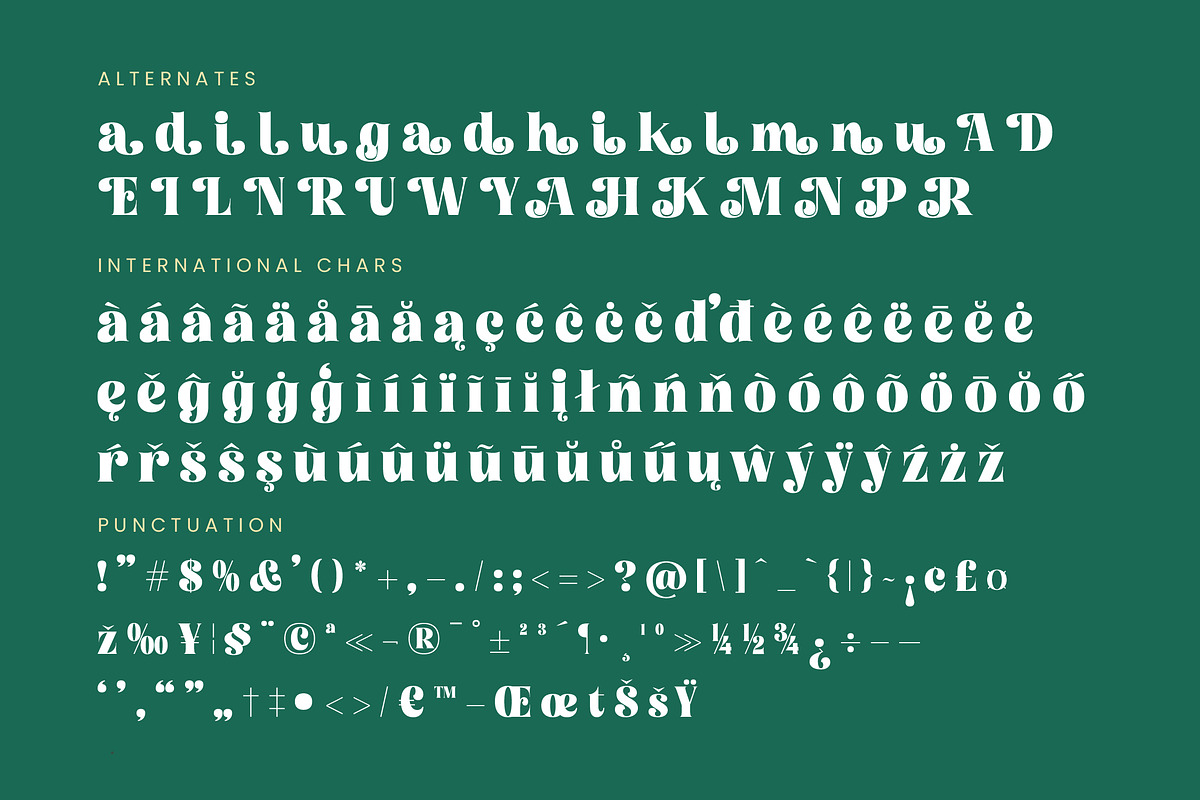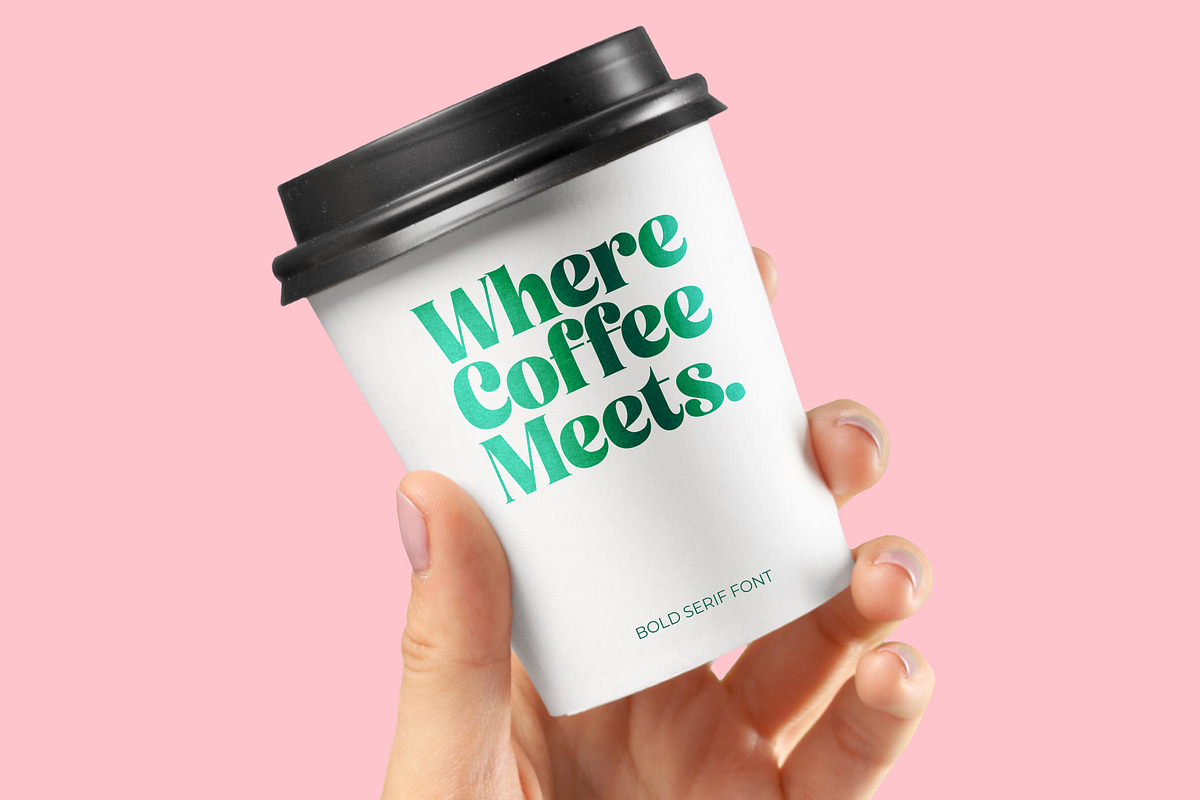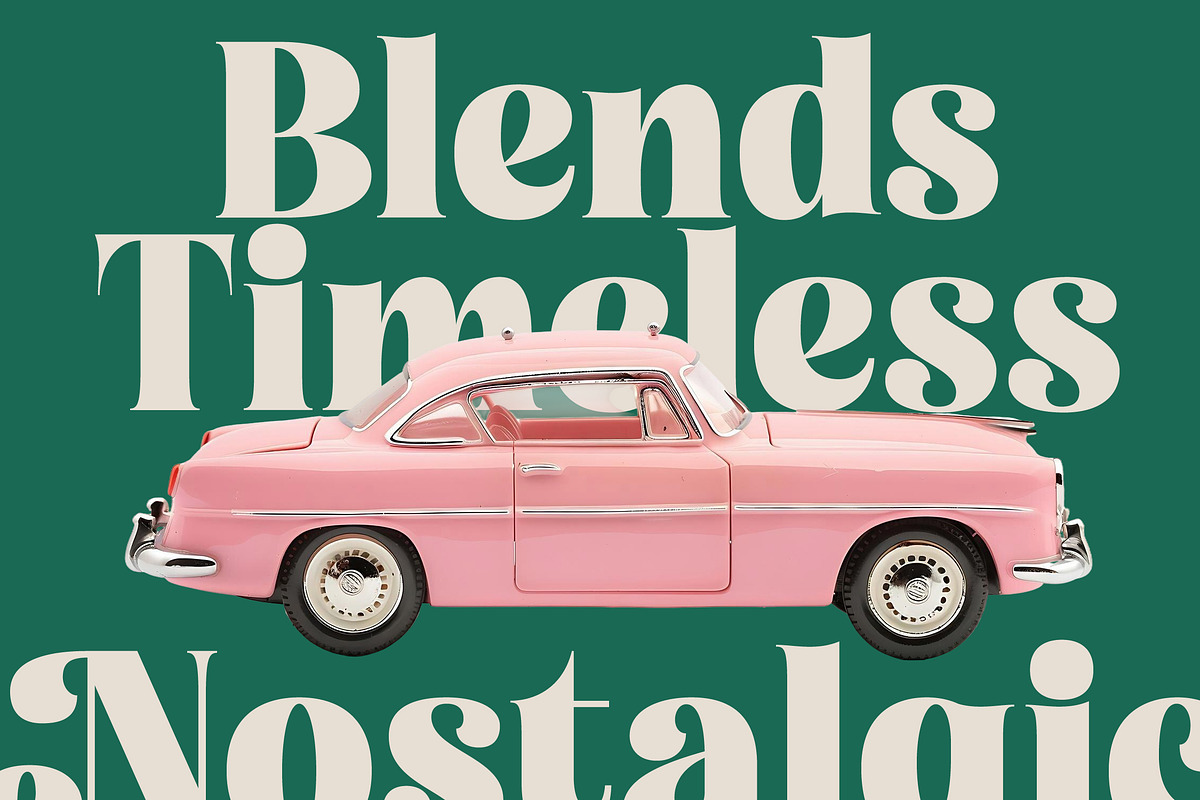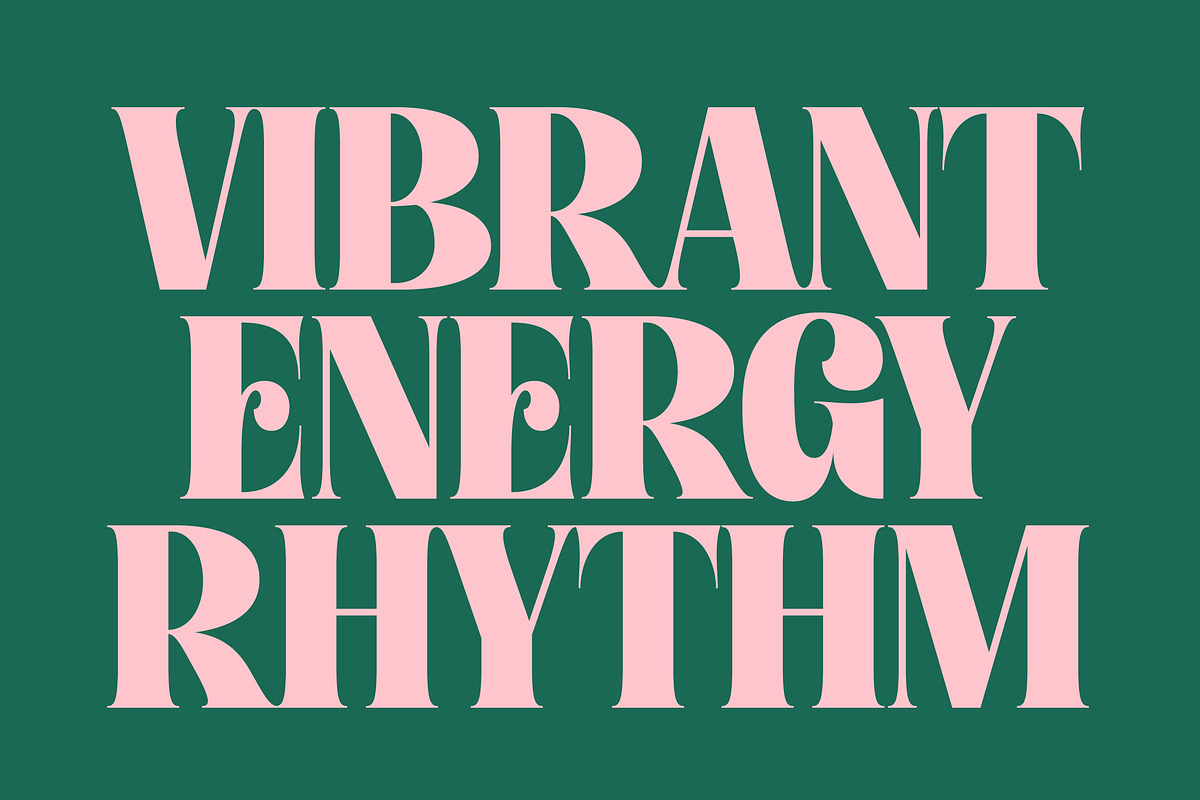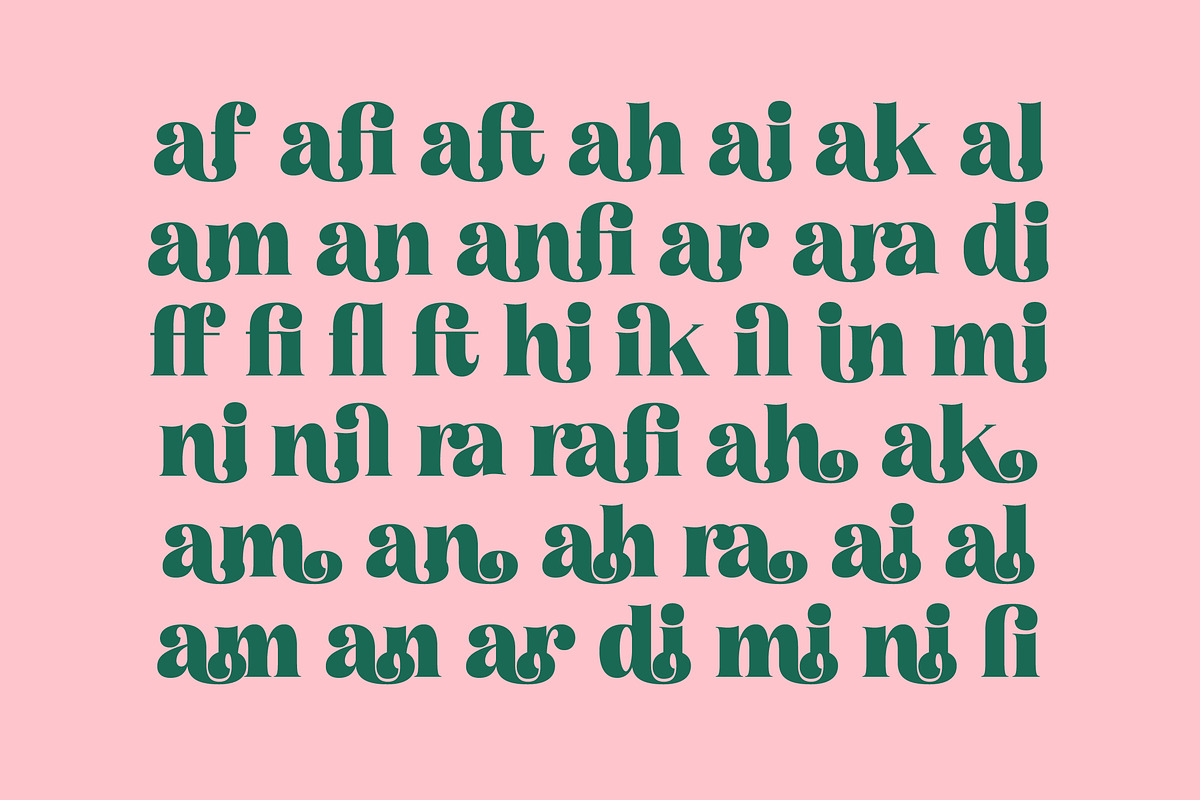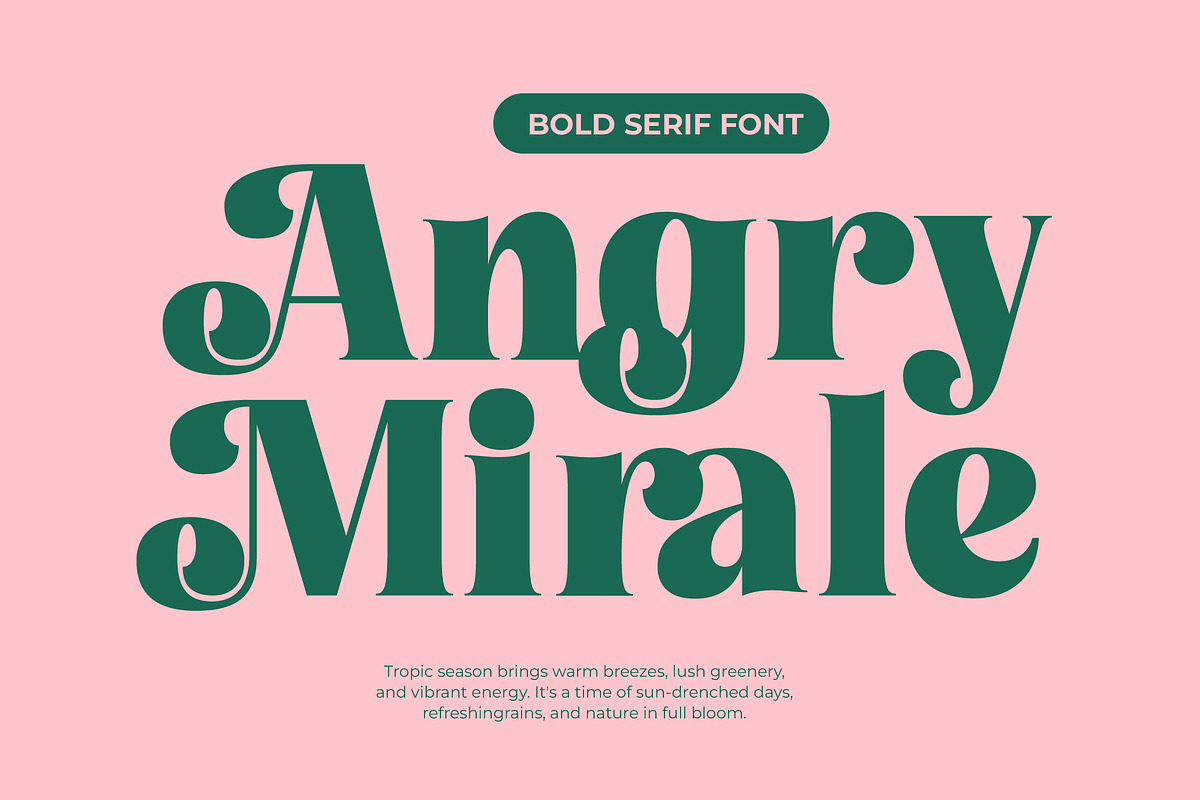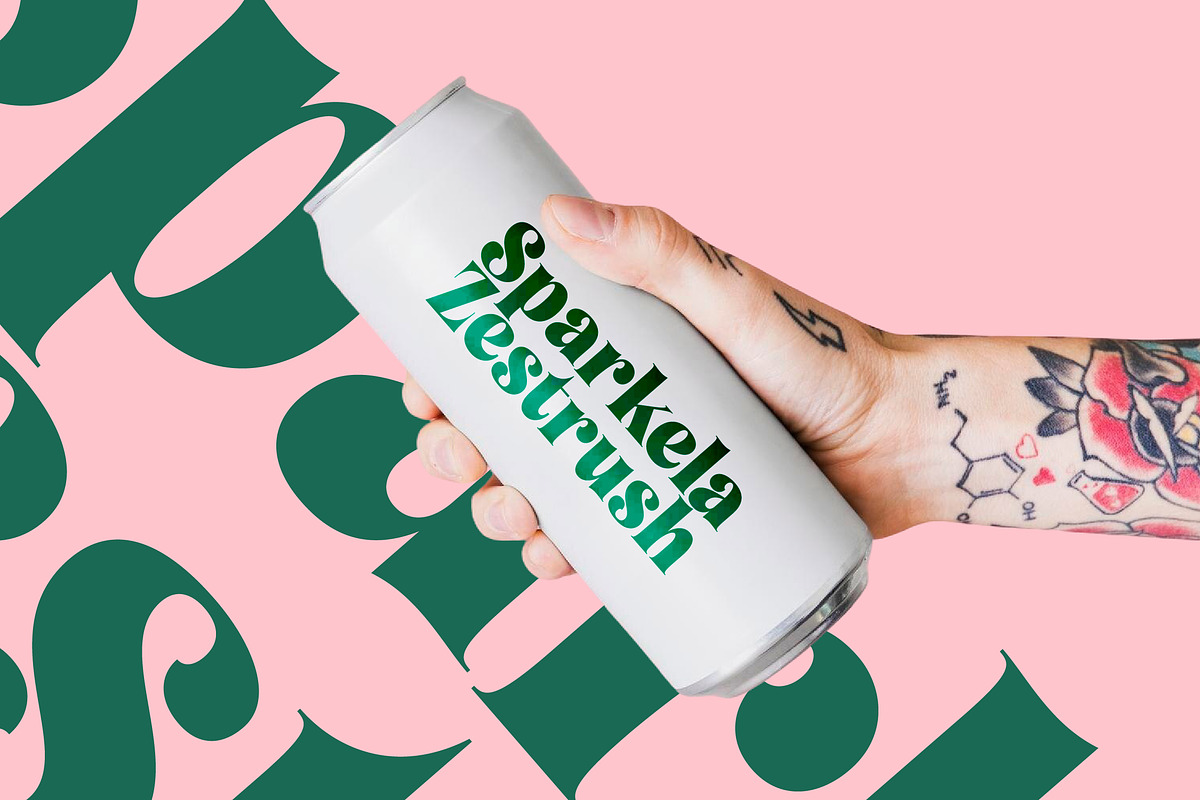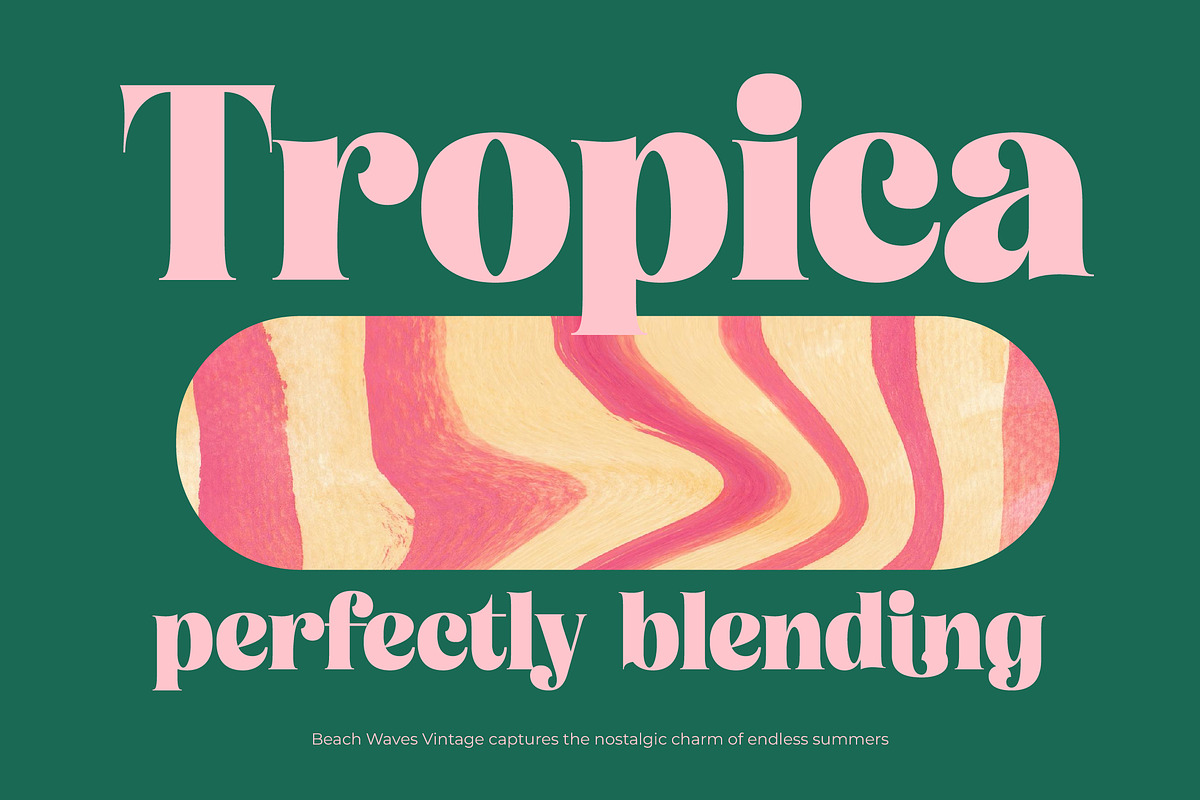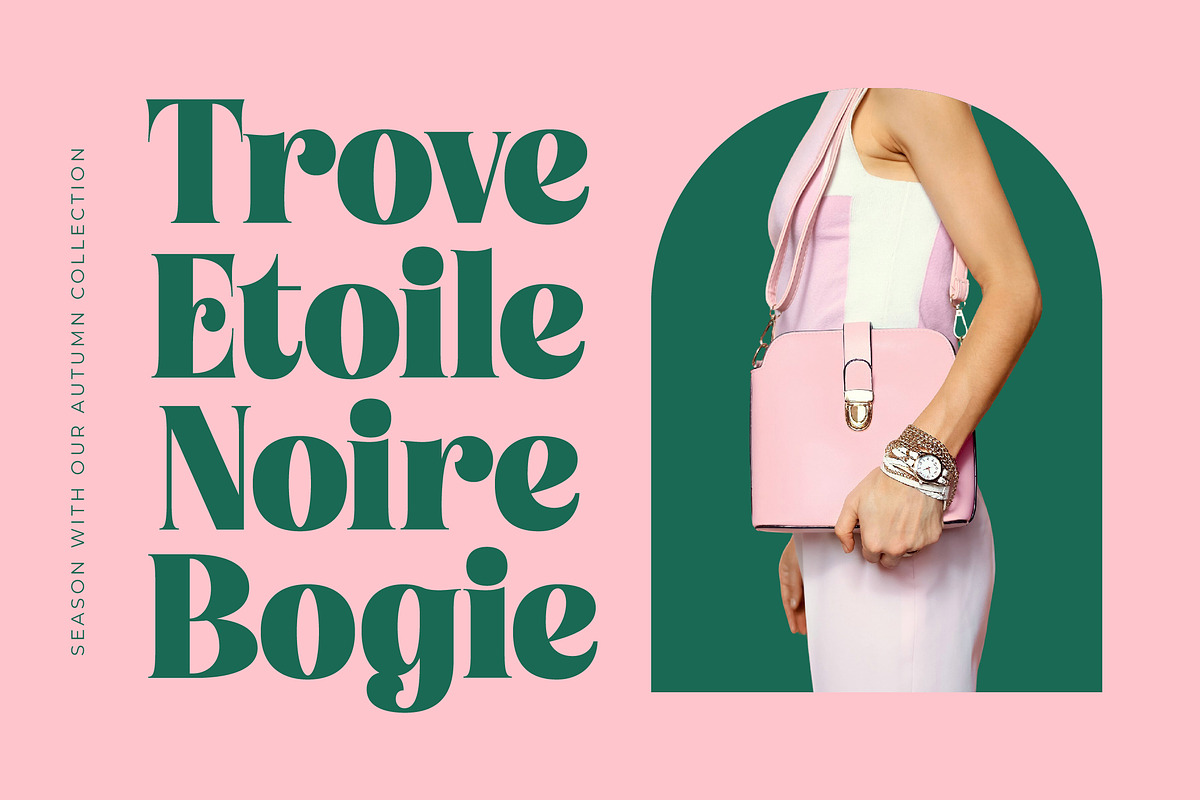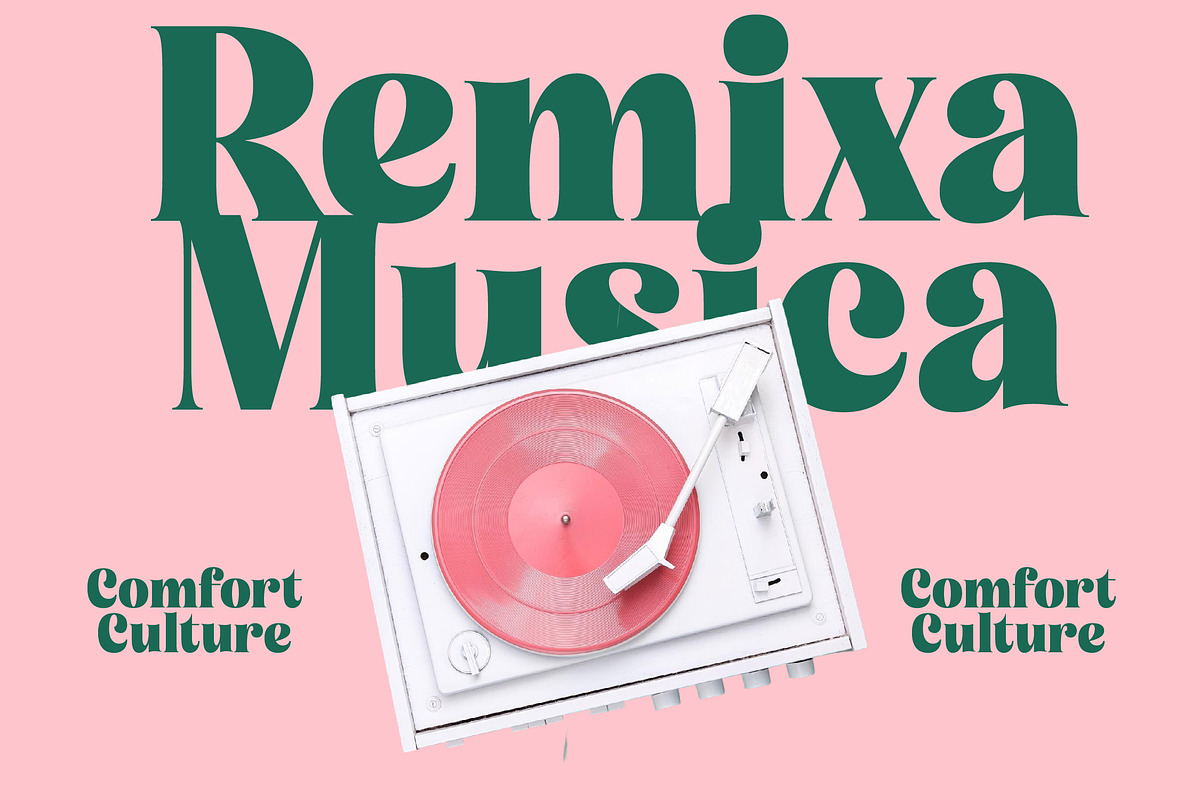
Tropic Fresh Bold Vintage Serif
Step into a world of vibrant elegance and timeless style with Tropic Fresh, a typeface designed to breathe life into your most creative visions. This font captures the essence of sun-drenched afternoons and high-end coastal living, offering a unique blend of sophistication and playfulness.
Inspired by the lush aesthetics of tropical retreats and the nostalgic charm of vintage resort signage, this font evokes a sense of escape and luxury. It draws from the golden era of editorial design where bold strokes and organic curves met to create a lasting visual impression.
With its striking presence, this modern serif display is engineered for maximum branding impact, making it an essential tool for luxury typography. The high-contrast serif details and unique character shapes ensure that every word feels like a piece of custom editorial font artistry.
Tapping into the current modern serif trend, this typeface is perfect for designers looking for character-driven typography that stands out in a crowded market. It aligns perfectly with the shift toward editorial display fonts that prioritize personality and warmth over sterile minimalism.
This versatile typeface is a dream for logo design and high-end branding projects that require a touch of personality. Whether you are working on packaging for beauty products, a wedding invitation suite, or a fashion magazine layout, it delivers a polished and memorable look.
The package is loaded with over 40 ligatures and 45 alternates that allow for endless customization and unique layouts. It also features a full set of international characters and multilingual support, ensuring your designs can reach a global audience with ease while including stunning swashes for a decorative finish.
- Ligature 42 Alternate 45